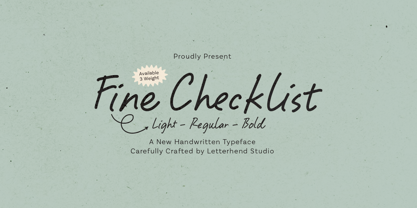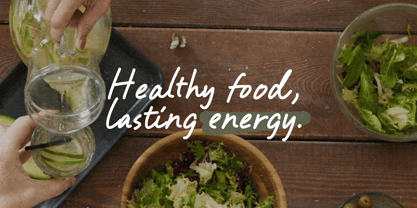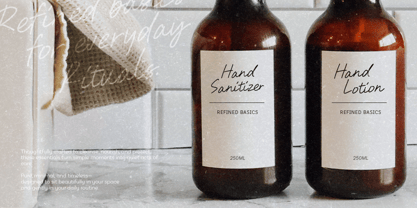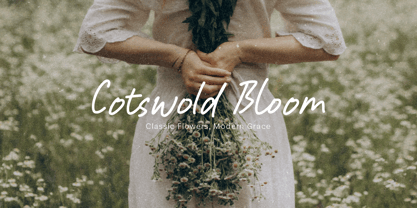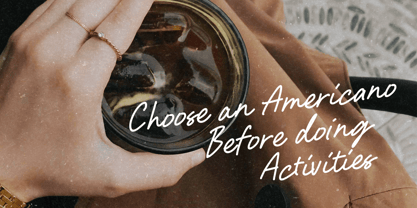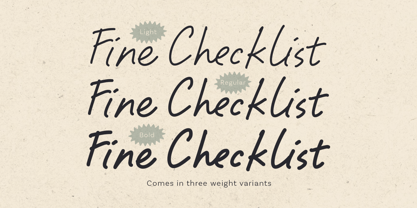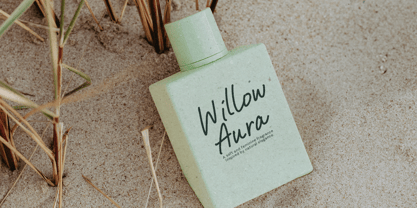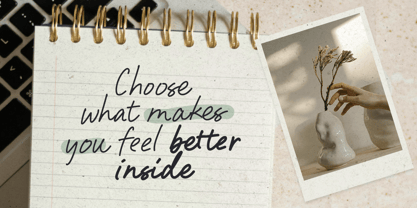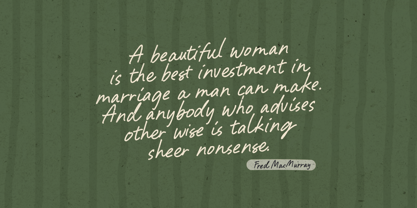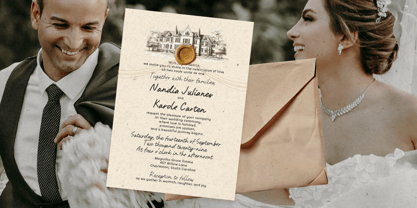
Fine Checklist
by Letterhend
Fine Checklist is a clean handwritten typeface with a natural, everyday writing feel. The strokes are smooth, slightly textured, and easy to read, giving it a calm and friendly vibe. With light, regular, and bold weights, this font is flexible for notes, planners, packaging, labels, posters, and casual branding. It feels simple, honest, and relaxed—perfect for designs that want a neat handwritten look without feeling messy. Features : Uppercase & lowercase Numbers and punctuation Alternates & Ligatures Multilingual Support PUA encoded